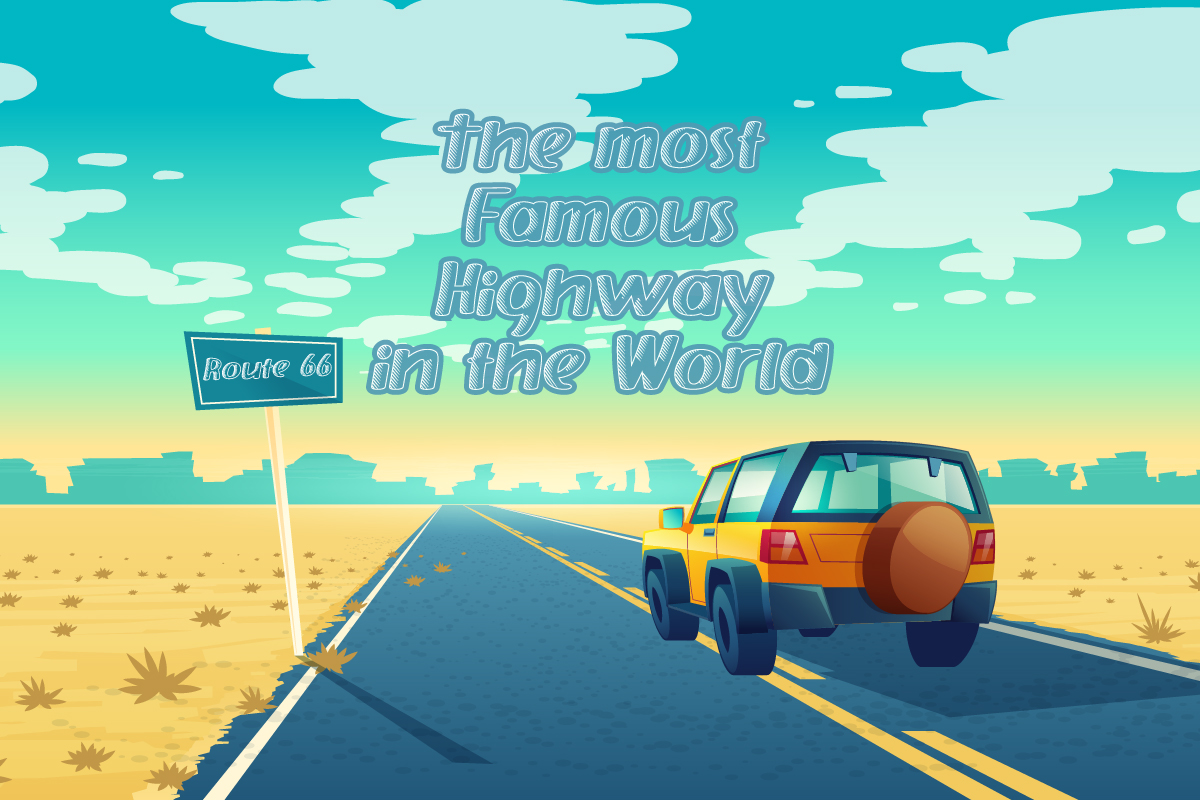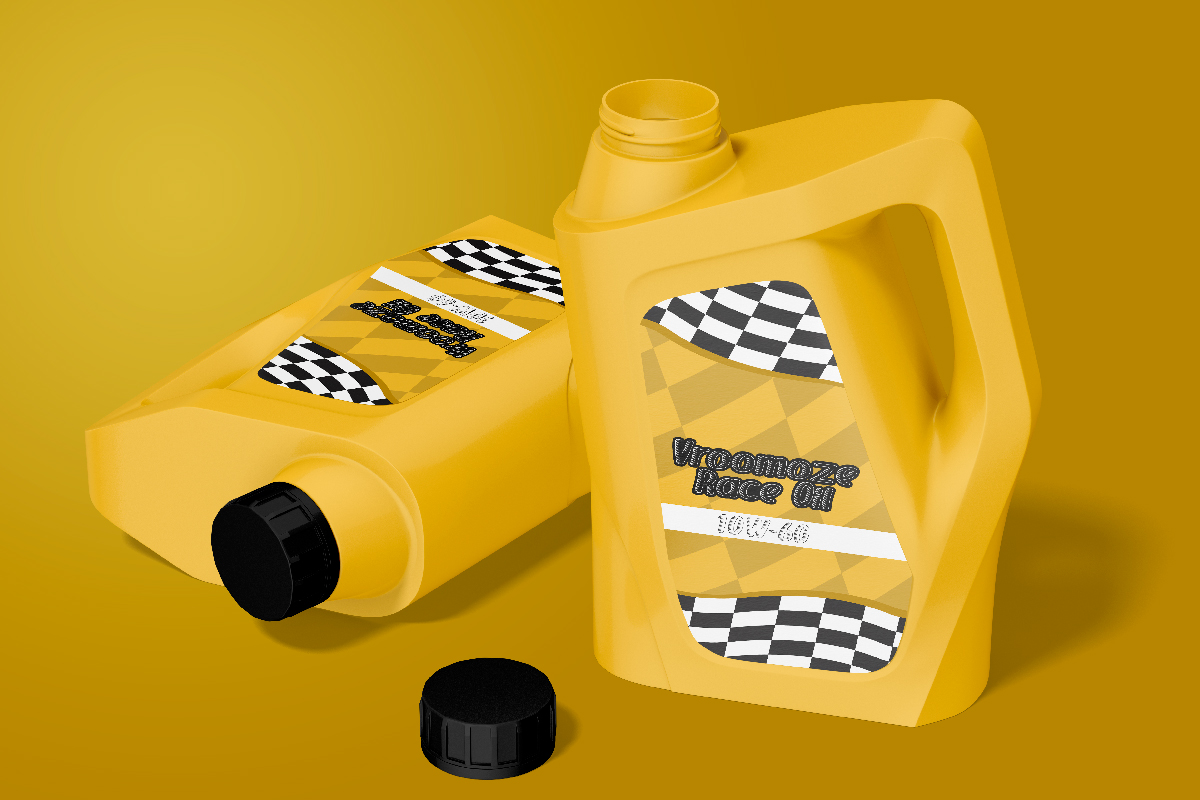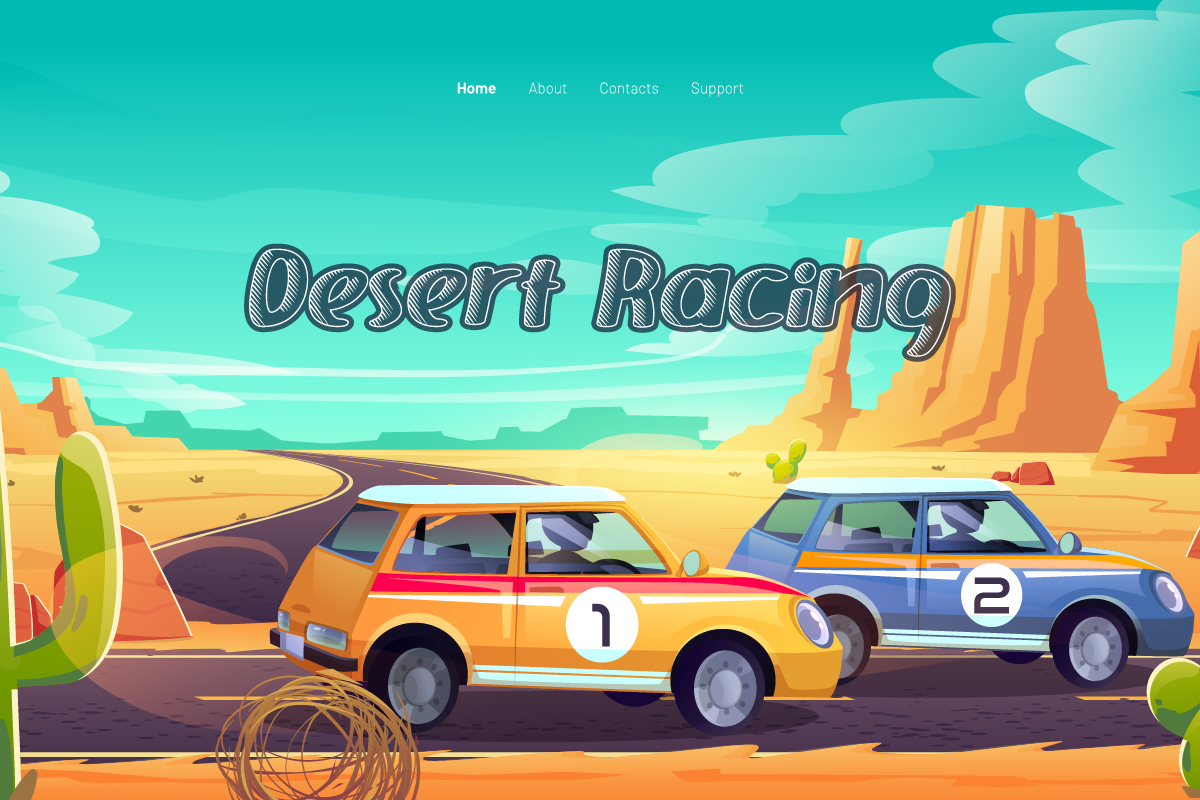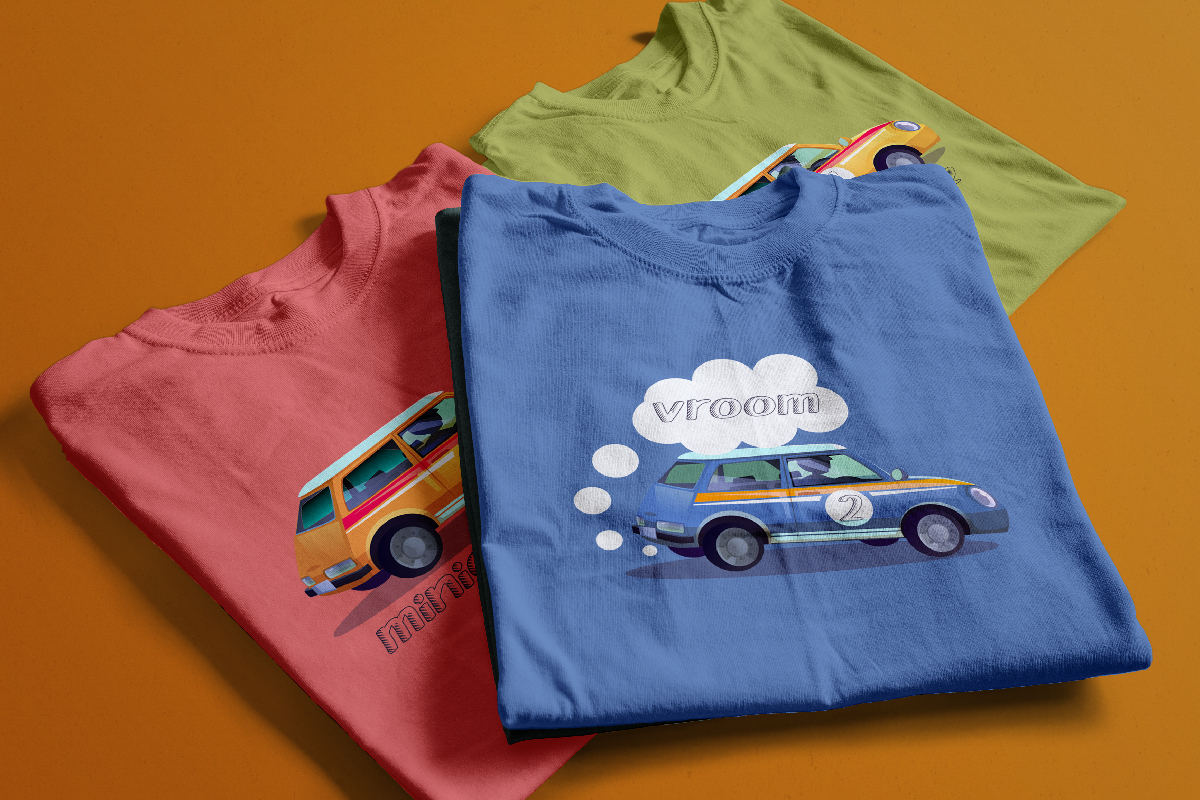
Vroom Vroom Font
Vroom Vroom Display Font
It’s a comic sketch font with speed racing style created by CalligraphyFonts. This font ideal for your many industry such as : animator, author, automotive, energy drink, fashion, kids, movie, racing, publishing, and anything that requires a unique visual appeal.